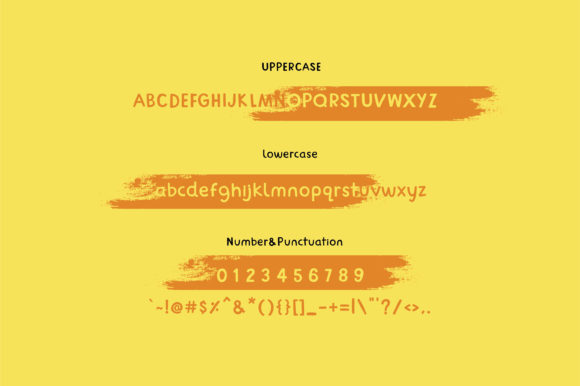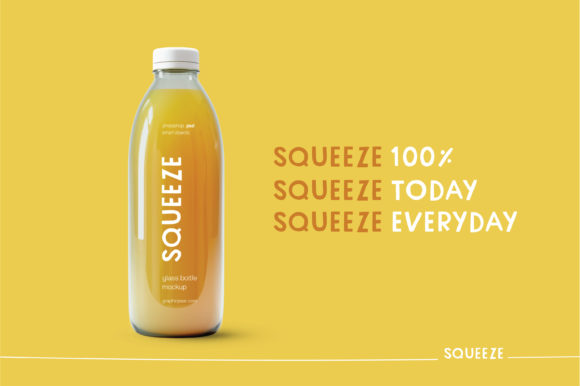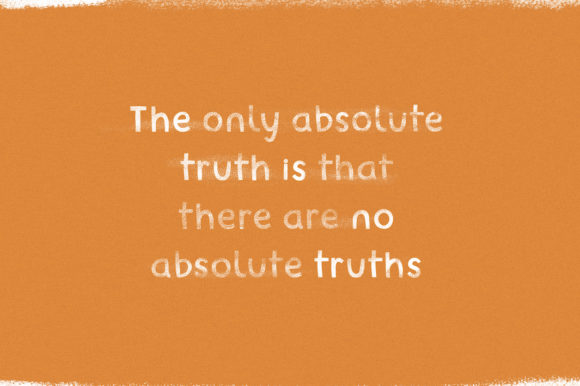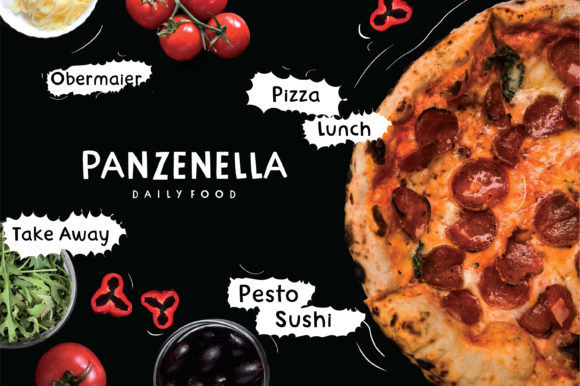
The Perfect Font for a Friendly Touch: An In-Depth Look at Absolute Font
I’ll never forget the time I was working on a branding project for a local bakery, and I just couldn’t find the right font to capture their warm and inviting personality. The client wanted something that felt approachable, yet still looked polished and professional. That’s when I stumbled upon Absolute Font, a casual handwritten font that completely transformed my design. In this article, I’ll share my experience with Absolute Font, its unique features, and how you can make the most of it in your own designs.
An Honest Review of Absolute Font
So, what makes Absolute Font so special? Here are some things I love about it:
• ✨ Natural and unique flow: Absolute Font has a distinct, hand-crafted feel that sets it apart from other handwritten fonts.
• ✅ Friendly and fresh look: This font is perfect for designs that need a personal touch, from branding and packaging to social media graphics and invitations.
• 🎨 Highly versatile: Absolute Font can be used for a wide range of projects, from formal to informal, and still look great.
Of course, no font is perfect, and Absolute Font has a few quirks:
• 🤔 Limited use of uppercase letters: While the font does have uppercase letters, they’re not as stylized as the lowercase letters. This might be a consideration if you need a font with strong all-caps capabilities.
• ⚠️ Some kerning issues: As with any font, you might encounter some kerning issues, especially when using certain letter combinations. However, these can usually be easily adjusted in your design software.
The Story Behind Absolute Font
Absolute Font was designed with the goal of creating a friendly, approachable font that would bring a personal touch to any design. Inspired by everyday handwriting, the font’s creator aimed to craft a unique and natural-looking font that would feel at home in a wide range of projects. Whether you’re a designer, crafter, or creative hobbyist, Absolute Font is sure to become a favorite in your font collection.
What type of projects is Absolute Font best suited for? Absolute Font is perfect for designs that need a friendly, approachable feel, such as branding, packaging, social media graphics, invitations, and more.
Is Absolute Font available in different weights or styles? Currently, Absolute Font is available in a single weight. However, the font’s creator may release additional weights or styles in the future.